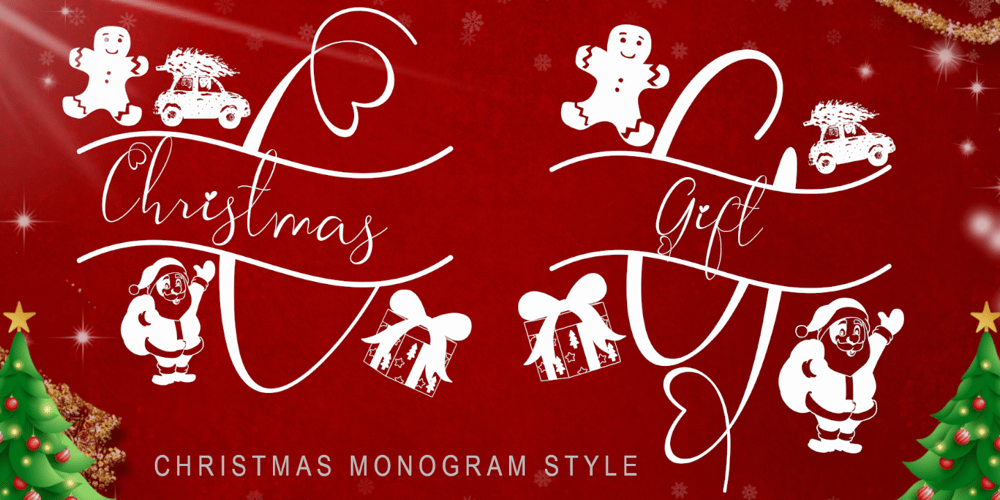
Monogram Christmas Gift Font Family was designed by Isroni Yoga Prasetya and published by Yoga Letter. Monogram Christmas Gift contains 2 styles and family package options. “Christmas Gift Monogram” is a beautiful and unique monogram font. This font is equipped with uppercase letters, lowercase letters, monograms, numerals, punctuation, and multilingual support. Very suitable for Christmas, winter, Valentine’s, holiday, spring, wedding, logos, posters, branding, engagement, and others.